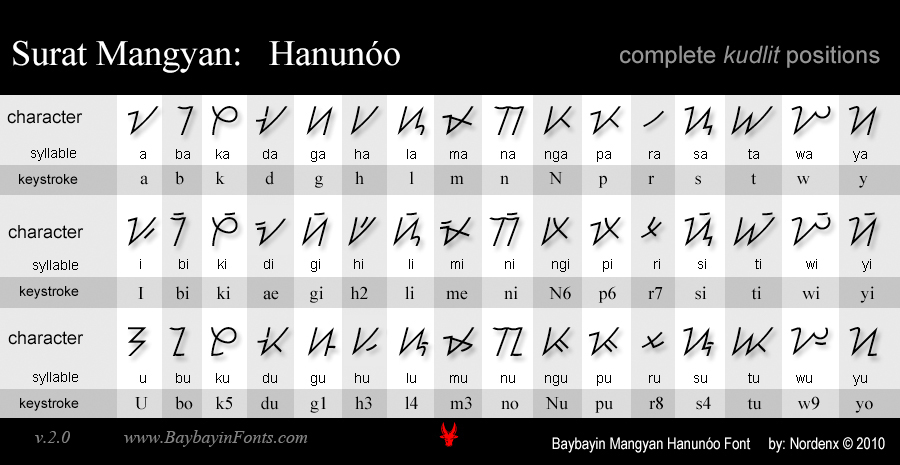
The Hanunóo Mangyan:
Hanunóo is an Austronesian language spoken in the southern part of the Philippine island of Mindoro. Speakers of this language are known as Hanunóo or Hanunóo-Mangyan. The term Mangyan is the collective name for the eight indigenous peoples of Mindoro.
The Script:
Surat Mangyan, also known to local Mindoreños as Sulat Mangyan, the Hanunóo script is one of three surviving pre-Hispanic forms of writing in the Philippines. It is a version of the island's ancient script collectively known as Baybayin. Hanunóo writing is used mainly to write love songs or epic poetry called ʼambāhan, and also for regular & romantic correspondence. The script is used for writing in Hanunóo and other Mangyan languages but can also be used for writing other Filipino languages since it basically uses the same structure as other versions of Baybayin.
The Font:
The Style:
Baybayin Mangyan Script is a digitized form of what is traditionally carved characters. This font is based on several examples posted in the Internet. The characters’ shapes, sizes and weights have been made uniform in order to present a neat and elegant printed appearance.
What's new?
I included an alternate Mangyan version of the virama (vowel cancelling kudlit) mark called a "pamudpod". It works the same way as the Spanish cross kudlit or virama which is also still available. The pamudpod works aesthetically well at the end of a word while the cross particularly works well in the middle (and at the end) of a word. You can use either one or both or neither in your composition. To access the pamudpod use the equal key ( = ) and to access the virama use the plus key ( + ).
There is a new kudlit (consonant-vowel ligatures) system?
The Nordenx fonts are created so that a standard western keyboard can easily access the baybayin characters. Typing with these fonts is as simple as typing with any other fonts. If you know the basic spelling rules of the baybayin, that is enough. You don’t have to learn awkward keyboard maneuvers such as dead keys and you do not need switch letters around to make the kudlíts appear in their proper places. However, please note that the Mangyan script have different kudlit positions depending on what character is used. These different kudlit positions can be accessed by typing the keys for e, i, o, u, 1, 2, 3, 4, 5, and 6 (see sample image above). Using these keys, you can easily and accurately position your kudlits to write the proper Mangyan syllables. To render kudlit in the classical baybayin i/e & o/u locations, just use the i an o keys respectively.
* New kudlit position for Wu assigned to the 9 key
* New keystroke for Di assigned to Ae
* New kudlits assigned & extended to Buhid Unicode range
* New pakudos symbol assigned to the # key
* New kudlit positions for Ra assigned to 7 and 8 keys
* Unicode ranges transferred from Tagalog to Hanunóo